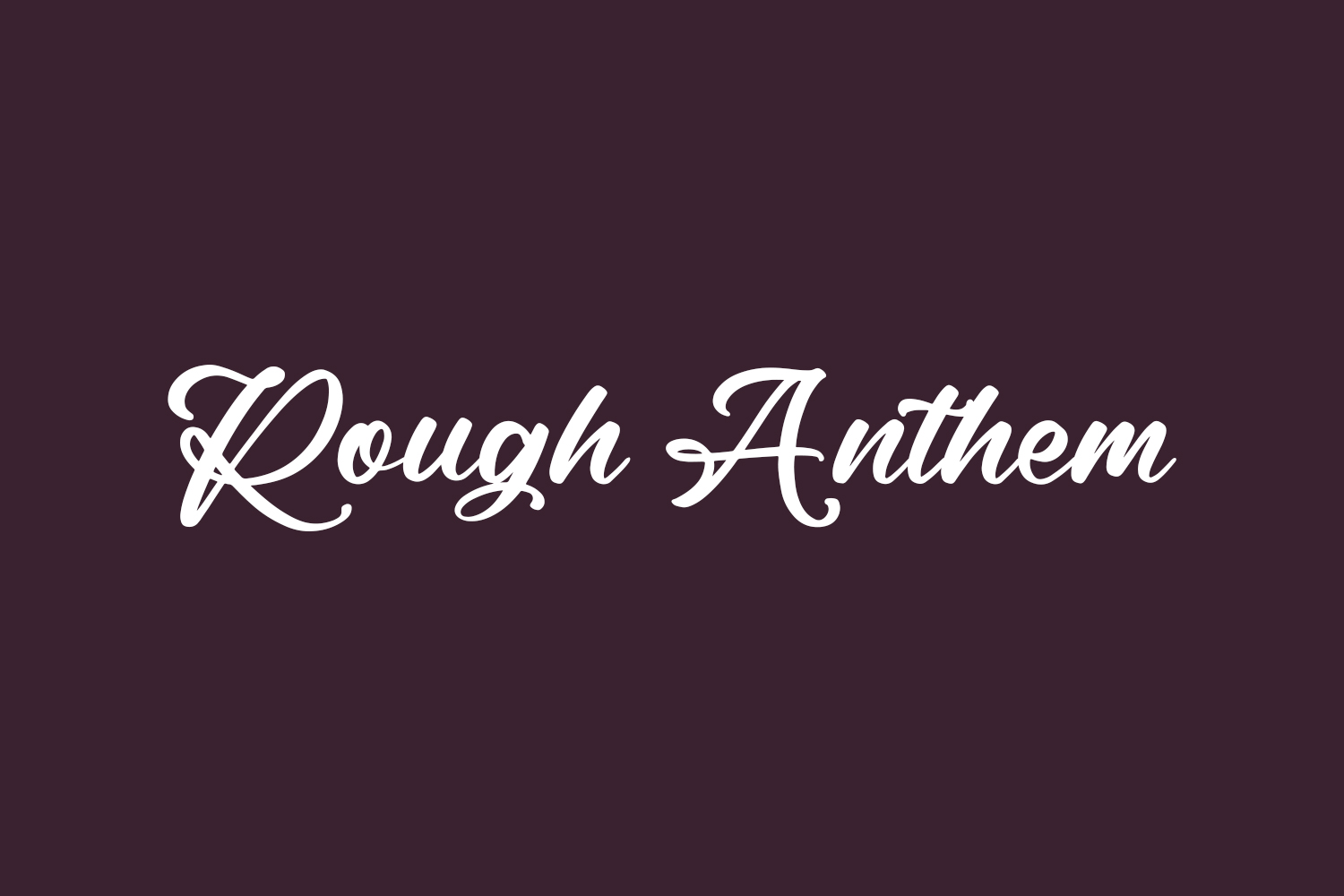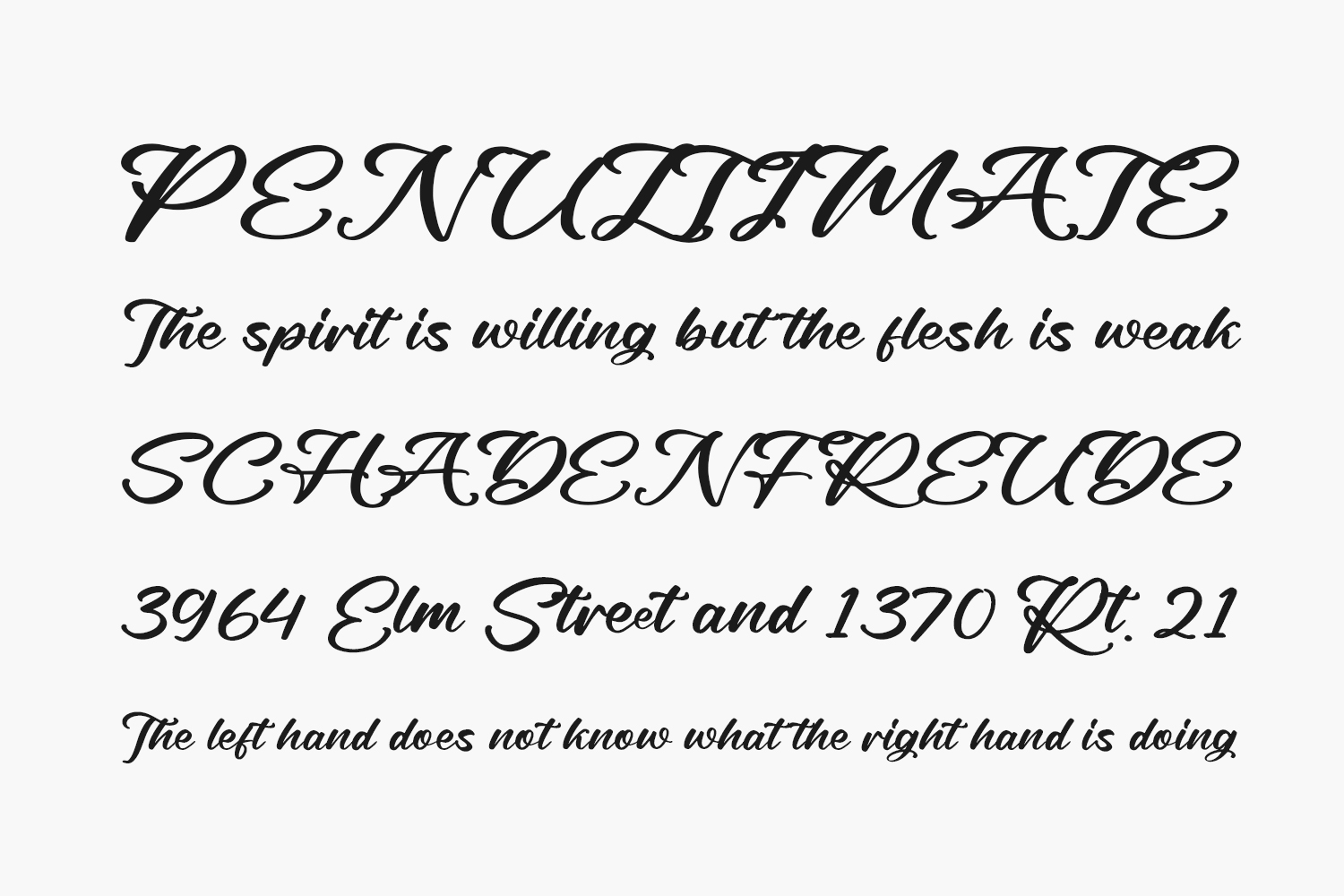
Rough Anthem Free Font Family is a lovely and delicate script font that exudes elegance and class. This font was particularly crafted for those who need a beautiful and refreshing look to their designs.
Designed by Ribeth Studio